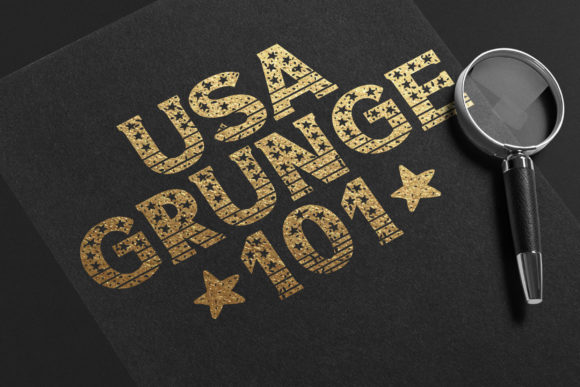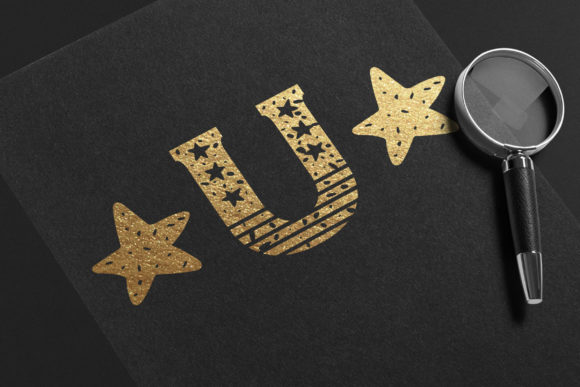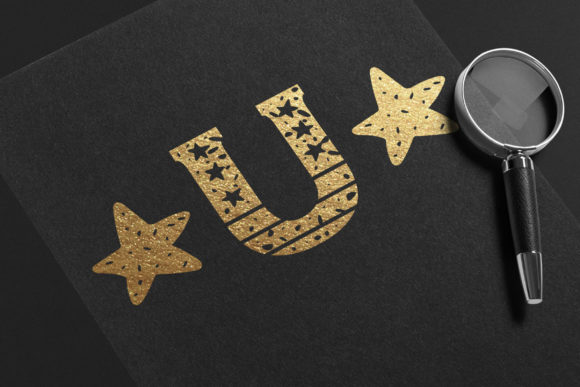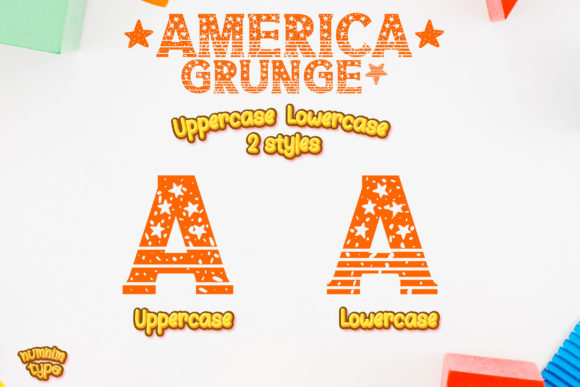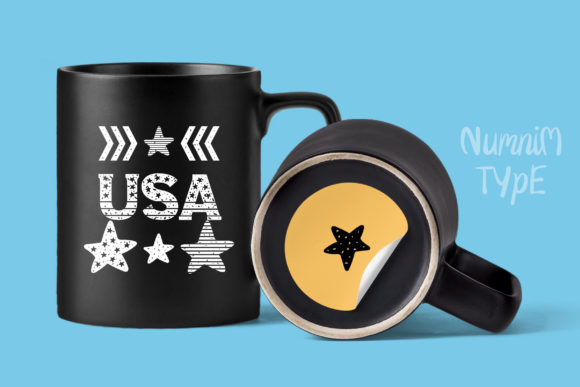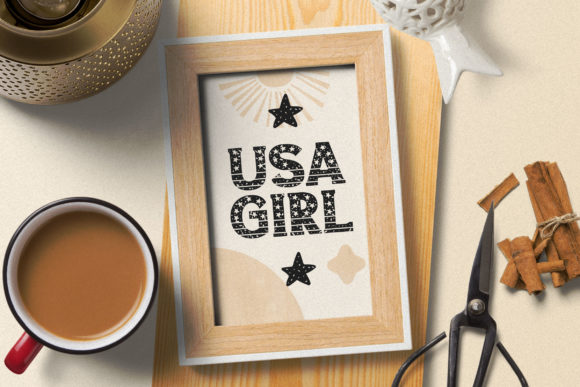
Introducing America Grunge Font: The Ultimate Choice for Crafty Designs
Are you a designer or crafter looking for a font that can add a touch of boldness and festivity to your projects? Look no further than the America Grunge Font. This cool and original display font is perfect for a wide range of crafty ideas, from letterheads and titles to stationery and more.
What is America Grunge Font?
America Grunge Font is a unique and eye-catching display font that is sure to make your designs stand out. With its bold and festive look, this font is perfect for anyone looking to add a touch of personality to their projects. Whether you’re working on a DIY craft project, designing a logo for a business, or simply looking for a fun and creative way to express yourself, America Grunge Font is the perfect choice.
Key Features of America Grunge Font
- Bold and Festive Look: America Grunge Font has a bold and festive look that is sure to grab attention. Its unique design makes it perfect for titles, headings, and other display text.
- Crafty and Versatile: This font is perfect for a wide range of crafty ideas, from letterheads and titles to stationery and more. Its versatility makes it a great addition to any designer’s toolkit.
- Original and Unique: America Grunge Font has an original and unique look that will set your designs apart from the crowd. Its distinctive design makes it perfect for anyone looking to add a touch of personality to their projects.
- Easily Readable: Despite its bold and festive look, America Grunge Font is still easily readable, making it perfect for use in a variety of contexts.
Uses of America Grunge Font
America Grunge Font is a versatile font that can be used in a wide range of contexts. Here are some ideas to get you started:
- DIY Craft Projects: America Grunge Font is perfect for DIY craft projects, such as making signs, banners, and other decorative items.
- Logo Design: This font is great for designing logos for businesses, events, and other organizations.
- Stationery and Invitations: America Grunge Font is perfect for creating custom stationery, invitations, and other paper goods.
- Graphic Design: This font can be used in a variety of graphic design projects, such as brochures, posters, and flyers.
Tips for Using America Grunge Font
Here are some tips for using America Grunge Font in your designs:
- Use it as a Display Font: America Grunge Font is perfect for use as a display font, such as in titles, headings, and other prominent text.
- Experiment with Colors: This font looks great in a variety of colors, so don’t be afraid to experiment and find the perfect hue for your design.
- Pair it with Other Fonts: America Grunge Font can be paired with other fonts to create a unique and interesting look.
America Grunge Font is a cool, bold, and festive display font that is perfect for a wide range of crafty ideas. Its original look and versatility make it a great addition to any designer’s toolkit. Whether you’re working on a DIY craft project, designing a logo for a business, or simply looking for a fun and creative way to express yourself, America Grunge Font is the perfect choice.